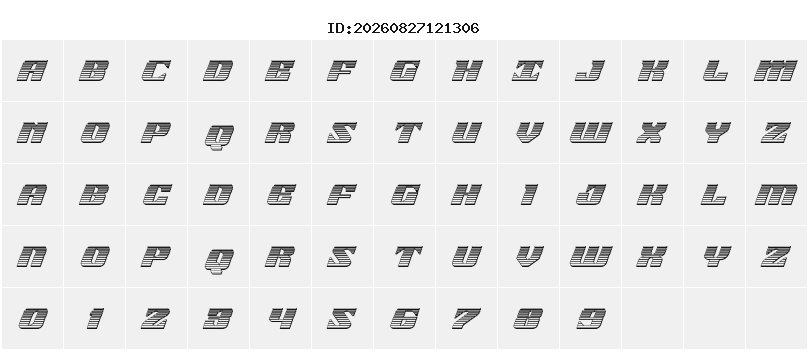
21 Gun Salute Chrome Italic Preview
• Font Name: 21 Gun Salute Chrome Italic
• Full Font Name: 21 Gun Salute Chrome Italic
About 21 Gun Salute Chrome Italic.ttf
21 Gun Salute Chrome Italic.ttf is a modern, elegant sans-serif font designed for ultimate readability and visual harmony. Perfect for branding, headlines, web design, and print materials.